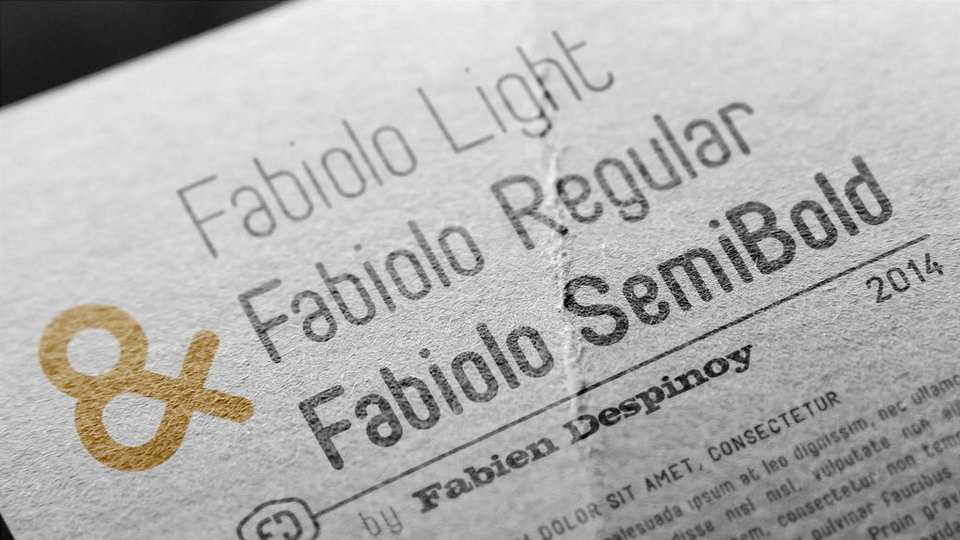
Download Fabiolo font family, a simple and clean typeface to be used in a wide range of different graphics while keeping an elegant and discreet personality. It suitable for texts and titles in branding, advertisement, social media and more.
Designer: Despinoy Fabien